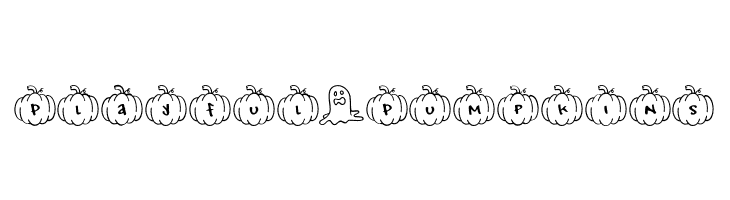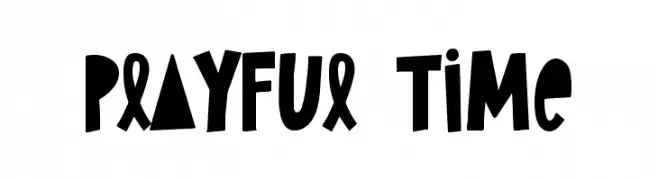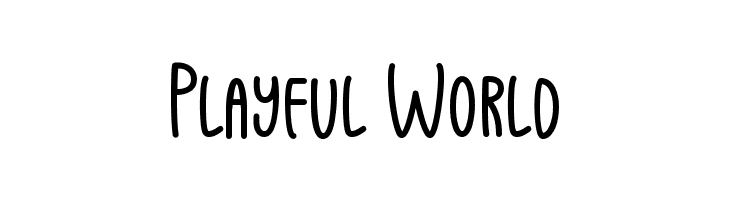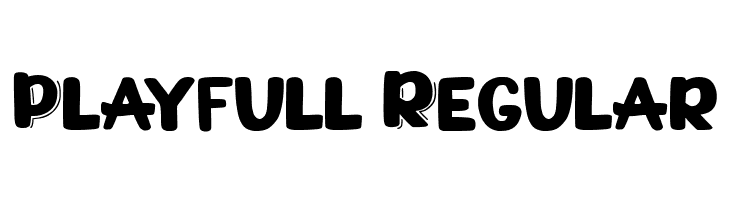
A playful, handwritten font with bold, flowing strokes and lively curves.
A playful, garden-themed decorative font with bold, rounded letters filled with intricate patterns.
A whimsical, hand-drawn font with tall, narrow letters and a playful style.
A playful, handwritten font with rounded, smooth characters.
Casual handwritten font with a playful style.
Playful, hand-drawn font with a whimsical style.
Playful and bubbly font with a swollen look.
A playful and bold font with irregular, dynamic shapes and whimsical character designs.
A playful, hand-drawn style font with rounded, whimsical letterforms.